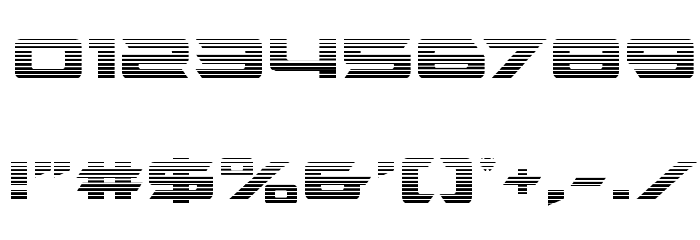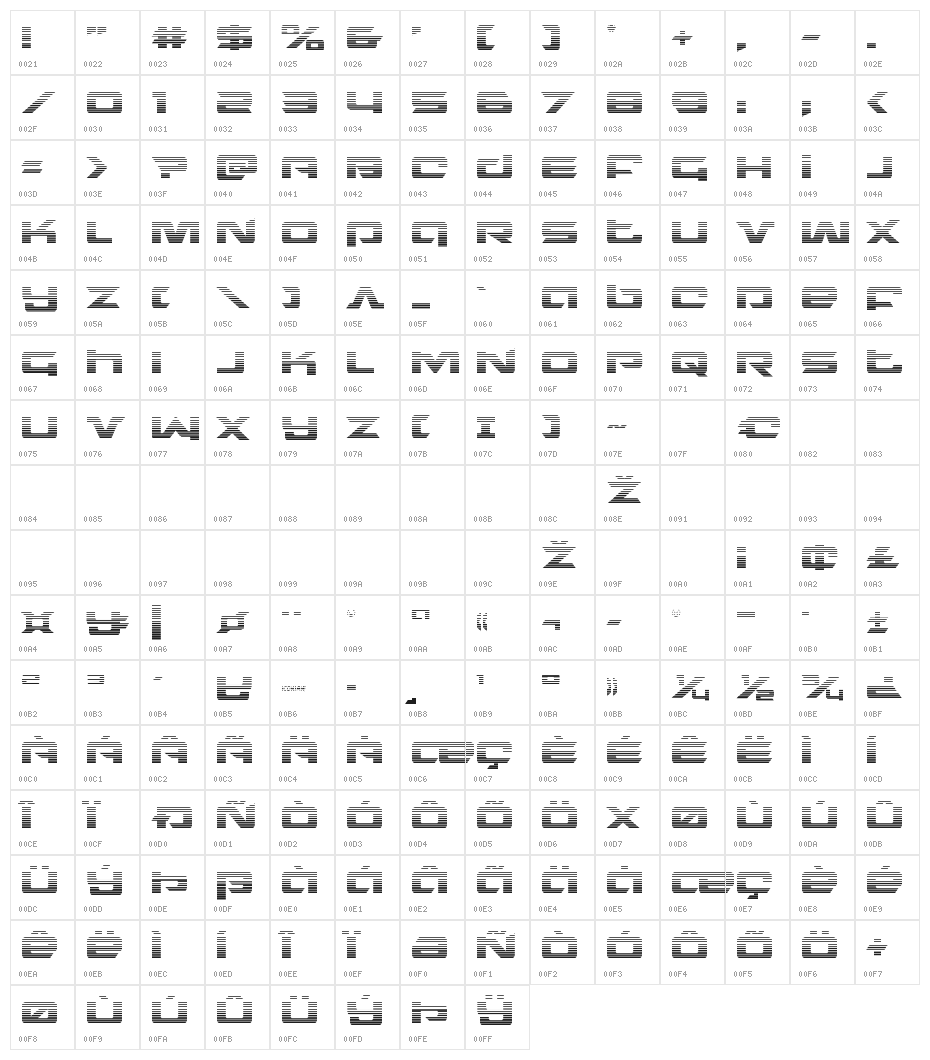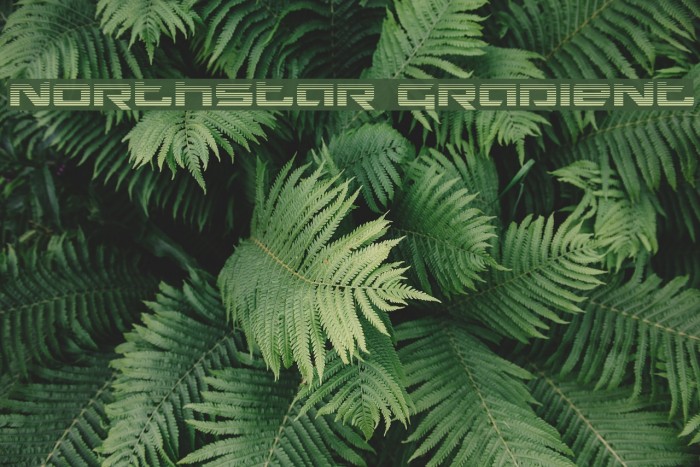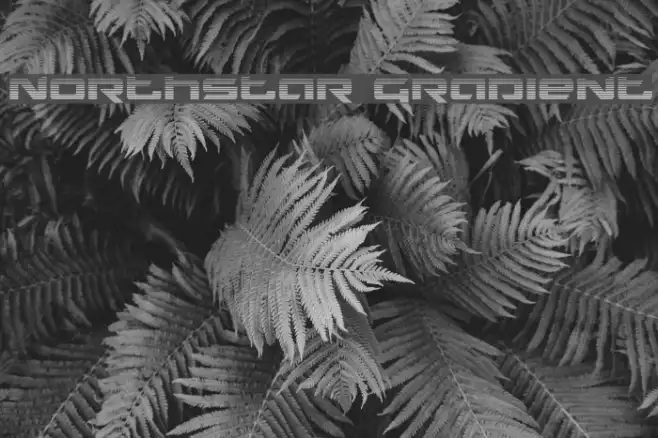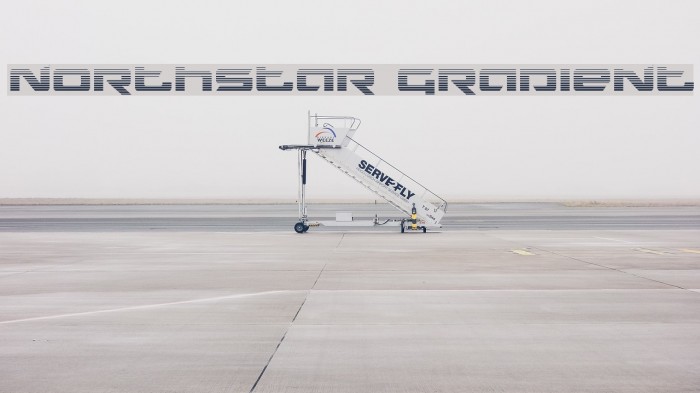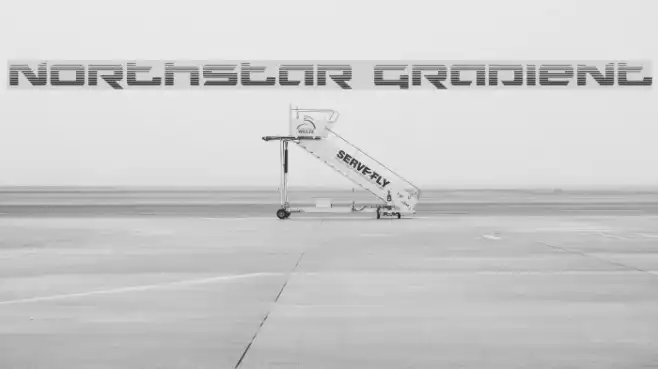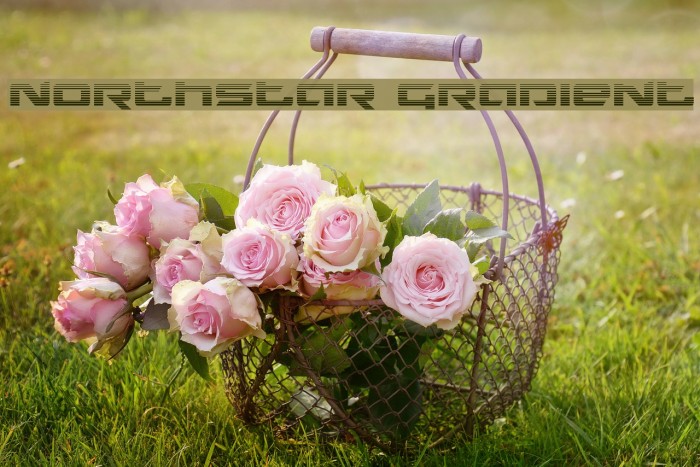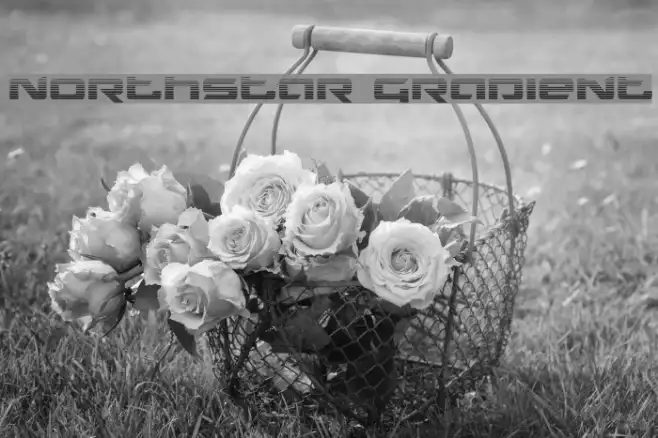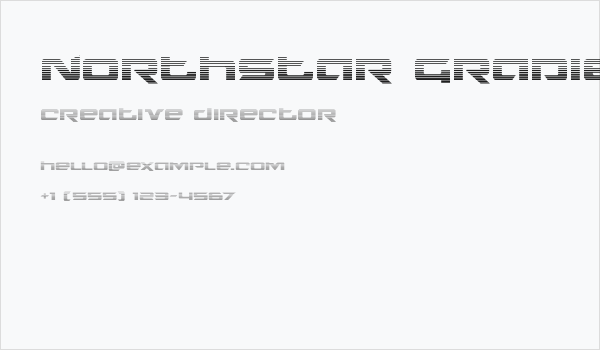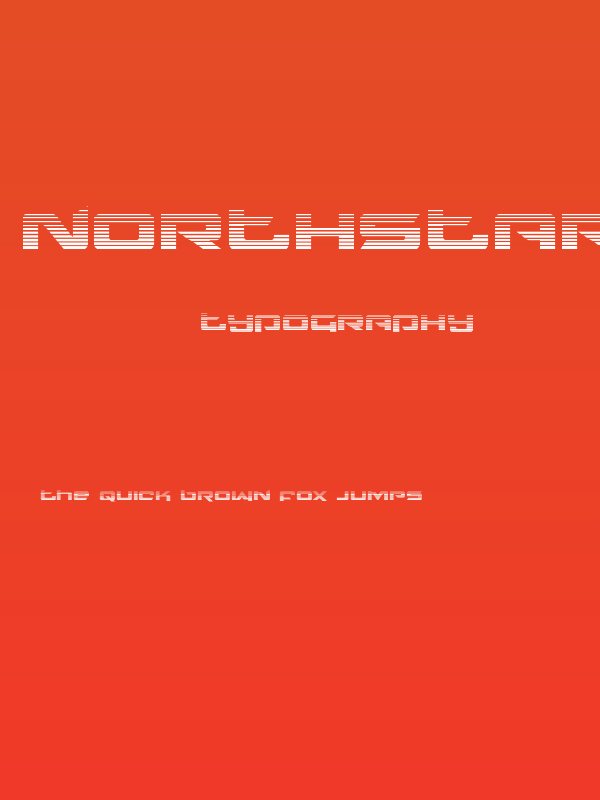
Northstar Gradient Font
Northstar Gradient Description
This font features a futuristic and dynamic design, characterized by its bold, geometric shapes and horizontal line patterns that create a gradient effect. The uppercase and lowercase letters maintain a consistent structure, with sharp angles and a sense of movement. The numerals and special characters follow the same stylistic approach, ensuring a cohesive look across all elements. The font's unique style makes it stand out, ideal for projects that require a modern and tech-savvy appearance.